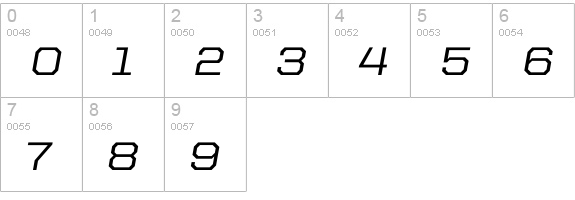
United Italic SemiExt Medium Font Details
United Italic SemiExt Medium is a balanced, medium-weight, italic variant in the United typeface family \xE2\x80\x94 well suited to sub-headlines, navigation, and balanced editorial work.
Introducing the stunning and versatile United Italic SemiExt Medium font, a truly remarkable typeface that embodies elegance and modernity. With its sleek and sophisticated design, this font effortlessly combines the classic charm of Italic styling with a contemporary twist, making it perfect for a wide range of design projects. The United Italic SemiExt Medium font exudes confidence and professionalism, making it an ideal choice for corporate branding, advertising materials, editorial design, and much more. Its semi-extended letterforms add a touch of uniqueness and individuality to any layout, ensuring that your message stands out from the crowd. But what truly sets the United Italic SemiExt Medium font apart is its accessibility. This exceptional font is not only visually striking but also freely available to download at FontsMarket.com. This means that you can enhance your designs with this premium font without breaking the bank. Whether you're a seasoned graphic designer or a passionate hobbyist, the United Italic SemiExt Medium font offers a wealth of creative possibilities. Its extensive character set includes a variety of ligatures and alternates, giving you the freedom to experiment and customize your designs to perfection. Upgrade your typography game with the United Italic SemiExt Medium font and elevate your designs to new heights of sophistication. Don't miss out on this incredible opportunity to access a high-quality font that is both visually stunning and freely available. Download the United Italic SemiExt Medium font today at FontsMarket.com and let your creativity soar.